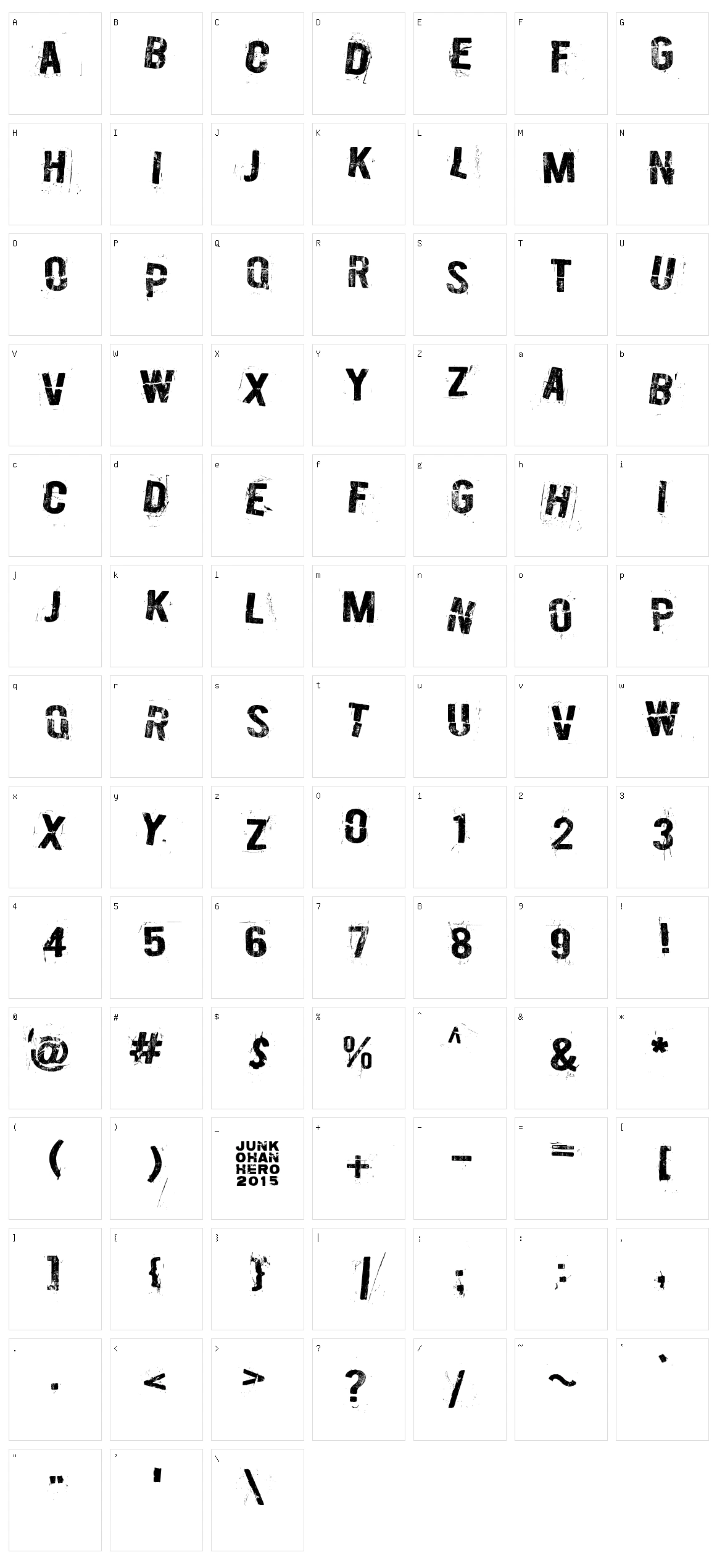
The free font Burn out, fade away is carefully designed by junkohanhero, showcasing a thoughtful balance of creativity and usability and falls under the Destroy font style. When you download the ZIP file, it contains only 1327.72 KB of font files, making it lightweight and quick to download. Please review the license details below to understand permitted usage and distribution rights. If license information is not available, we recommend using this font for personal projects only or contacting the author directly for commercial usage permissions.